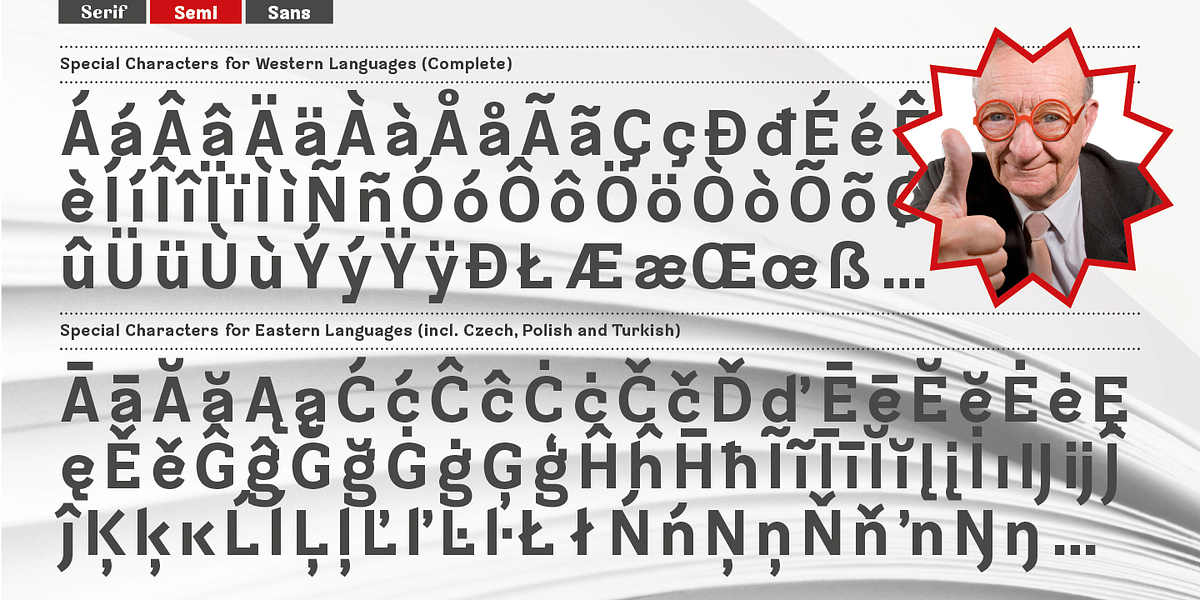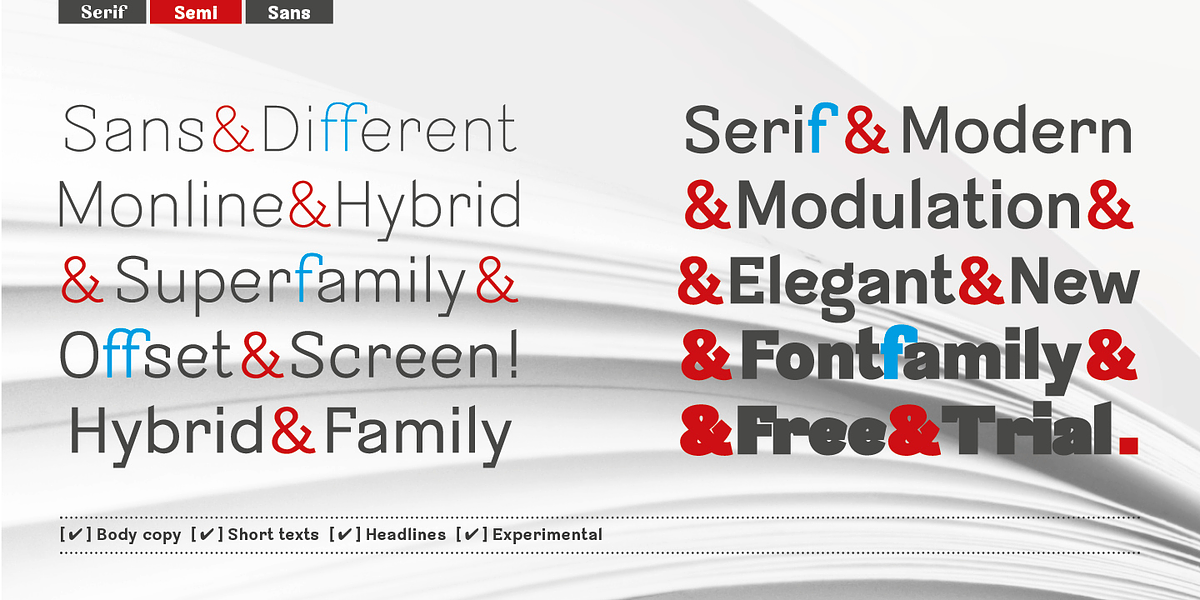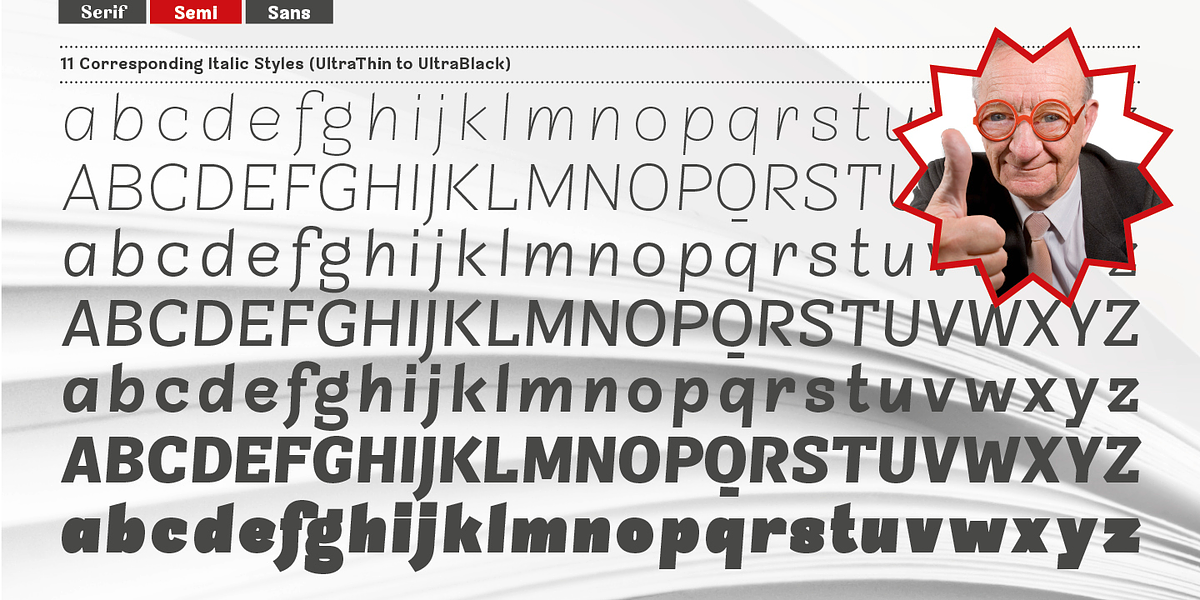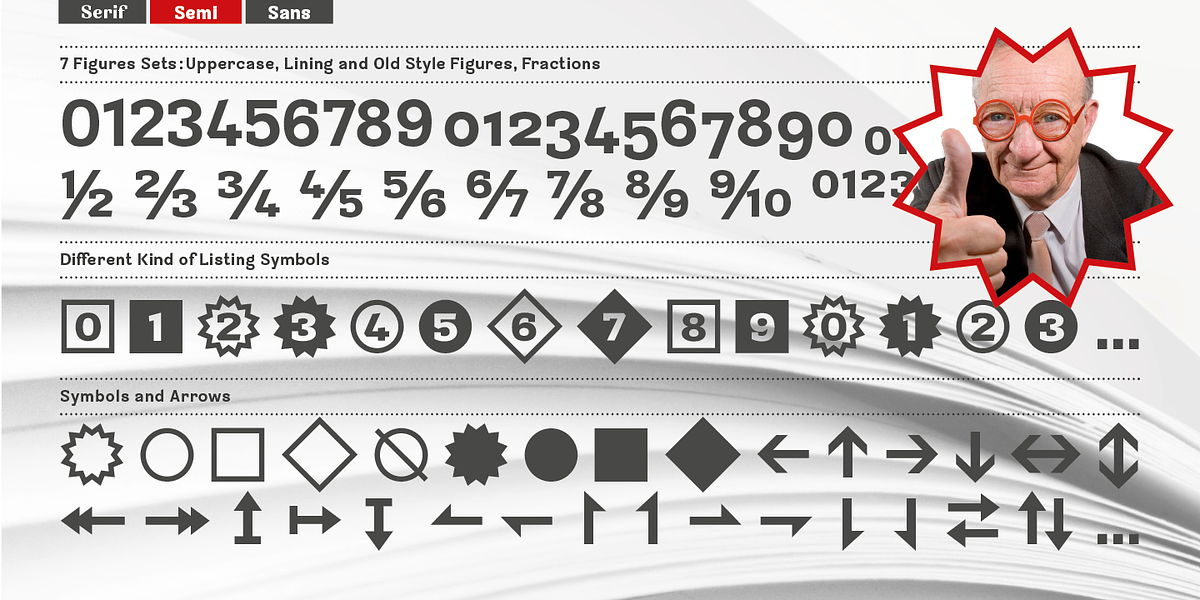
Sintesi Semi
Sintesi is a unique font family that blends the readability of a sans-serif typeface with the elegance of traditional serif features. At smaller sizes, it functions like a typical grotesque sans-serif, offering clean lines and compact letterforms. However, when used for headlines or larger text, Sintesi reveals a more pronounced contrast and subtle serifs, reminiscent of classic old style faces.